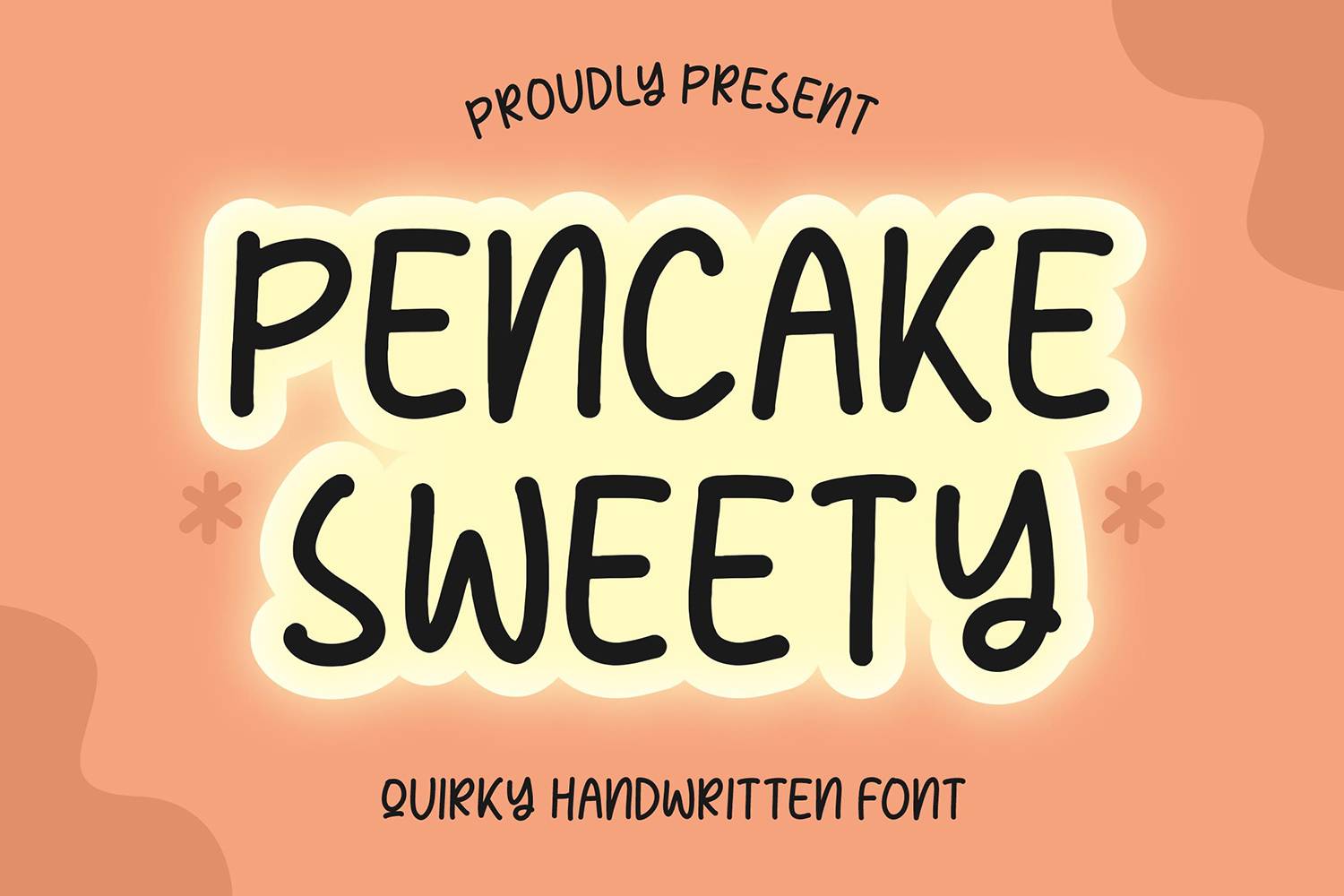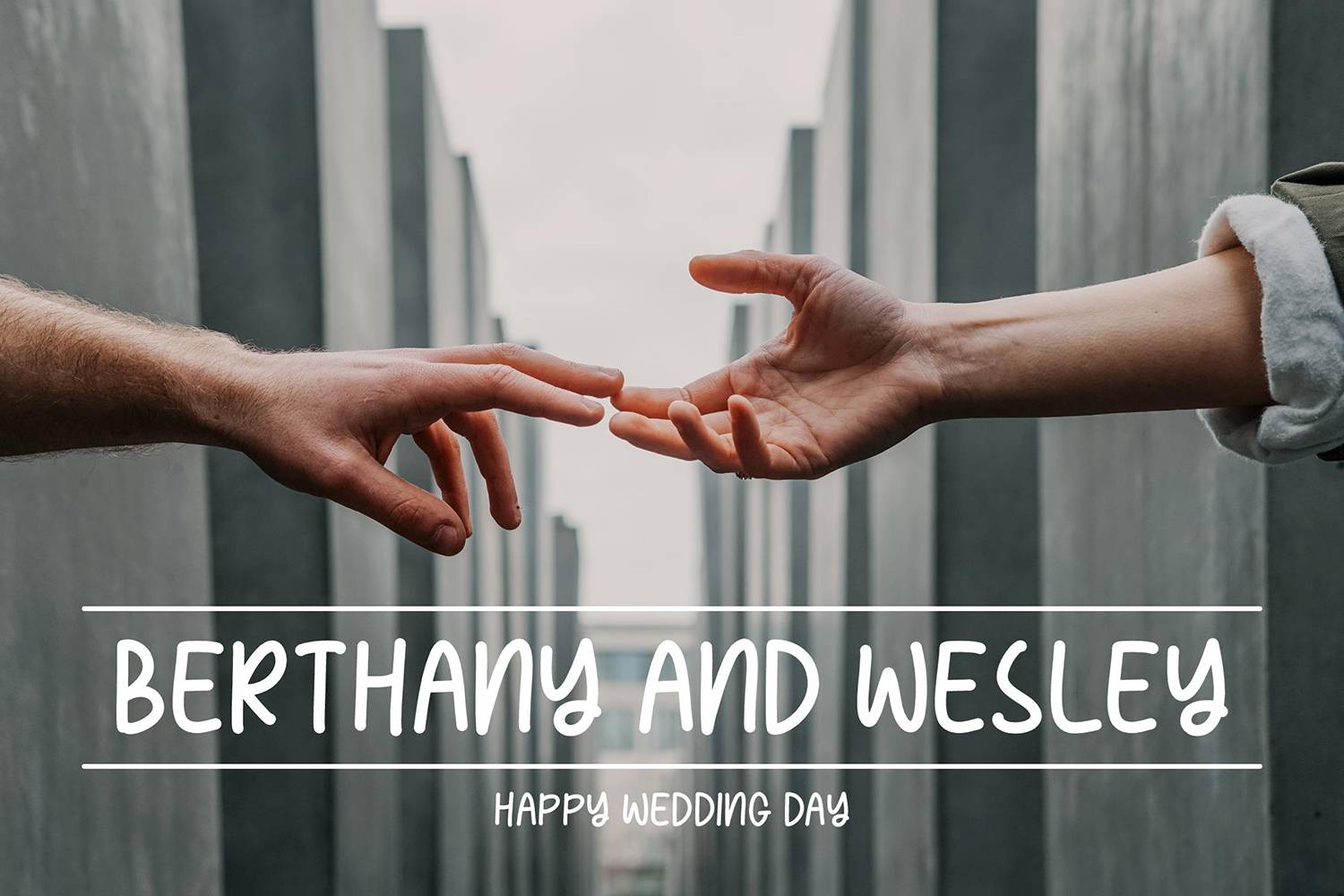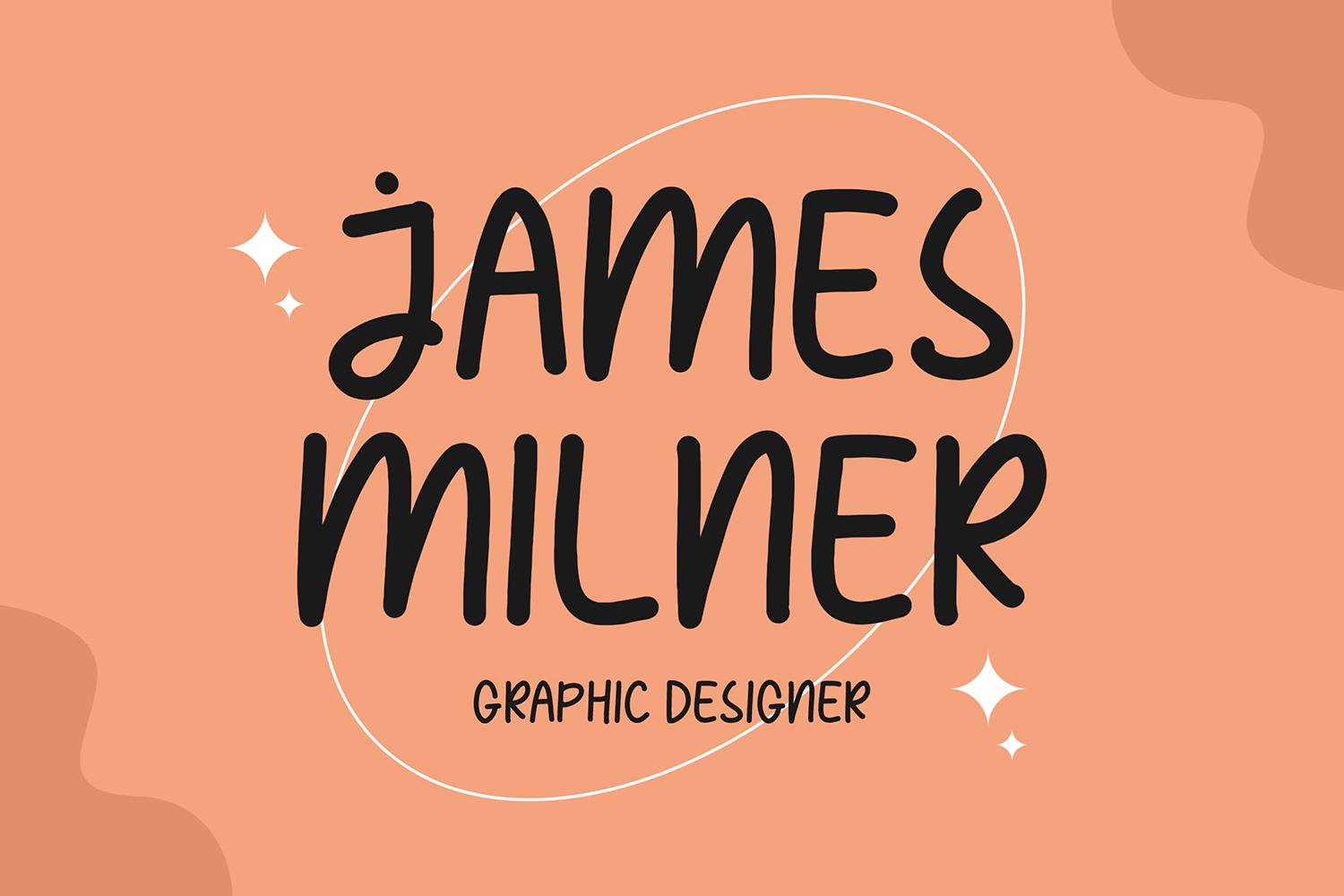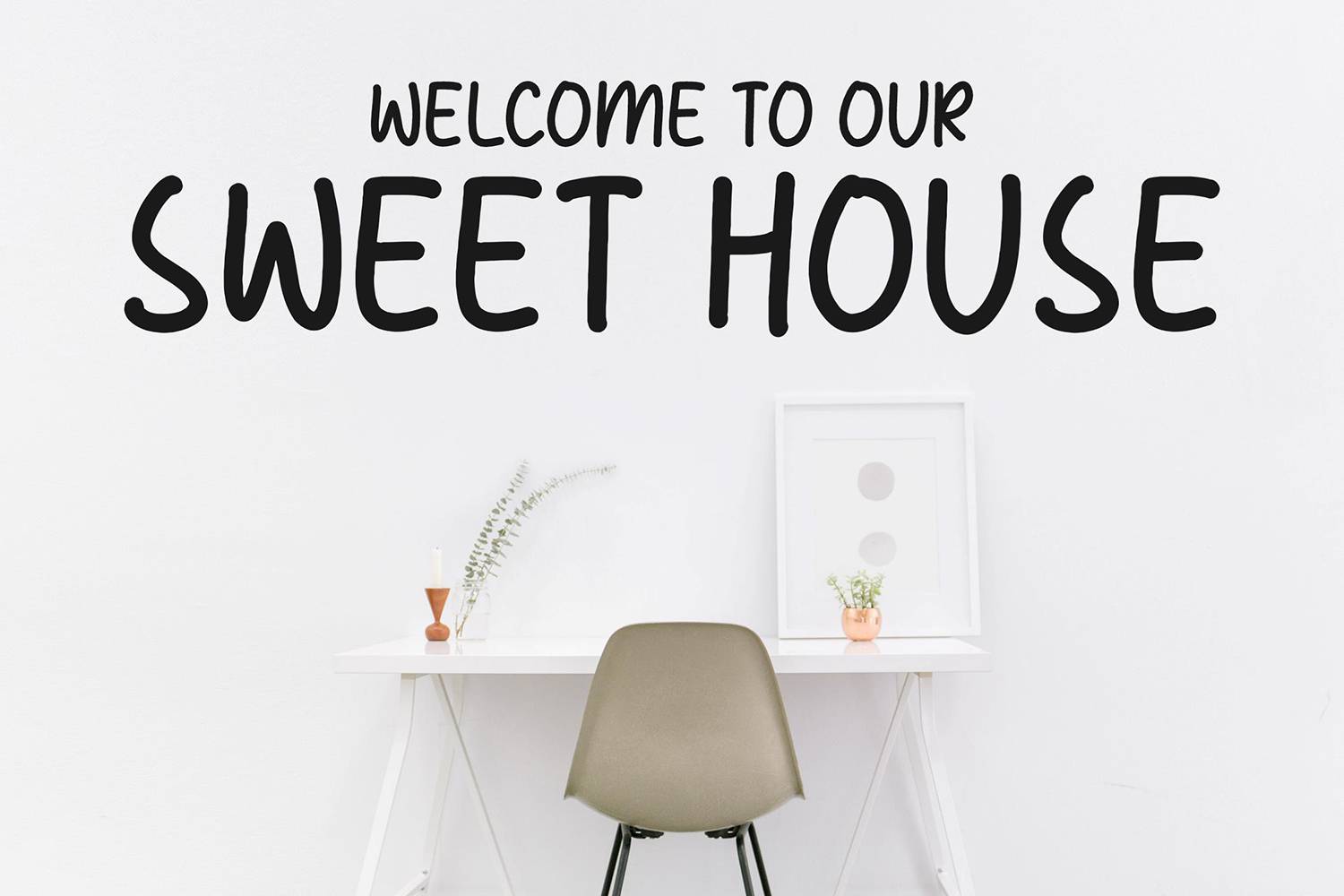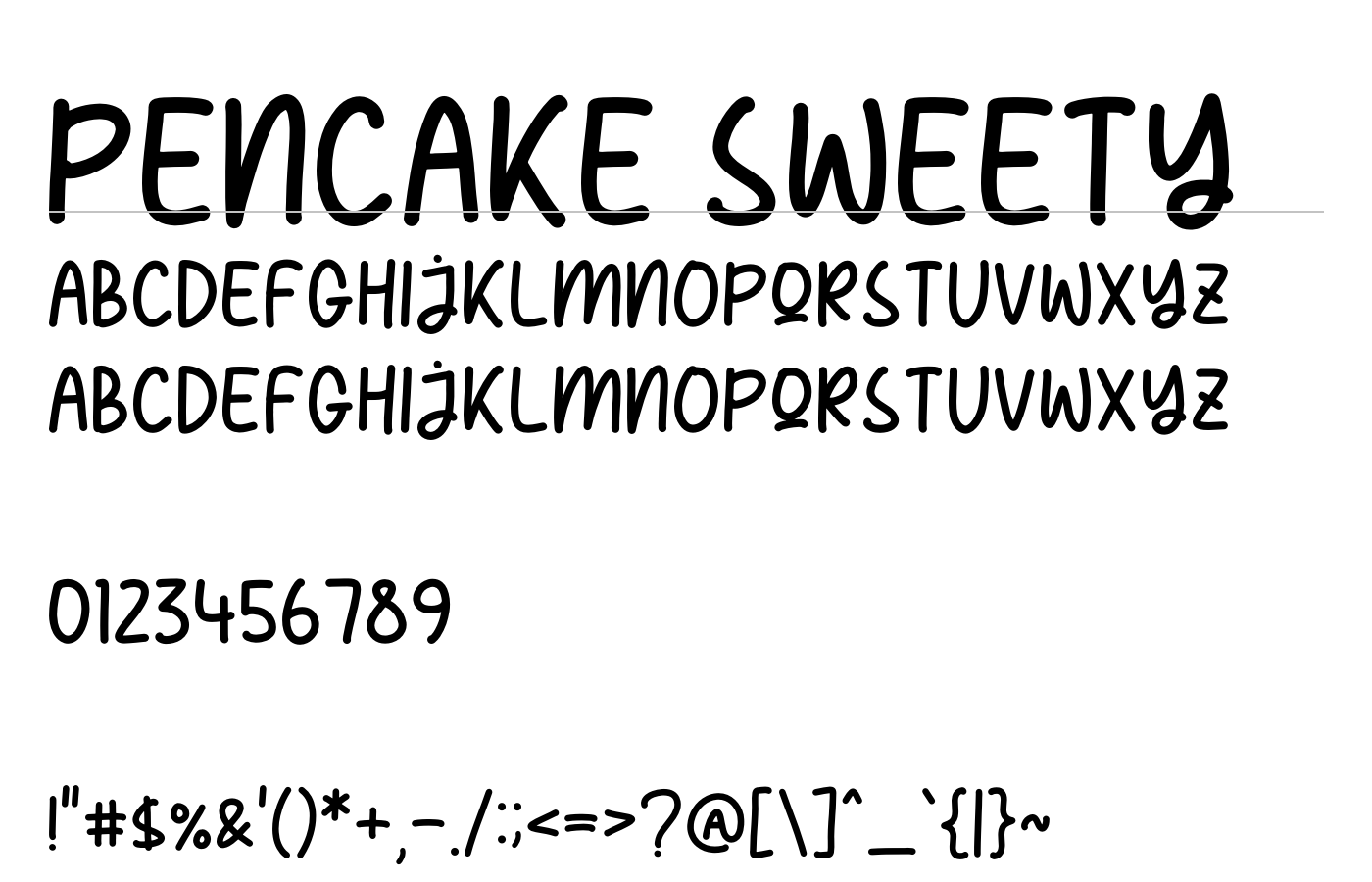
Pencake Sweety is a playful, rounded handwritten sans serif font with a casual and friendly vibe. Its slightly uneven strokes and tall x-height give it an approachable, childlike charm, making it perfect for informal designs, kids’ projects, and fun branding. This font works well in logos, posters, and packaging where a warm, personal touch is desired.
Pencake Sweety Font
About Pencake Sweety Font